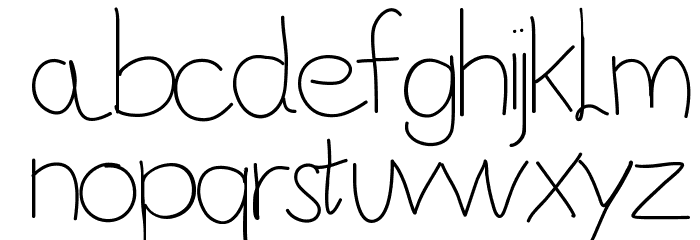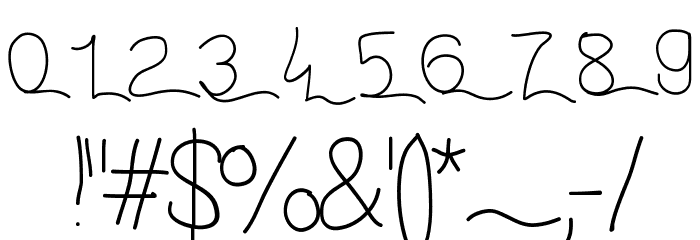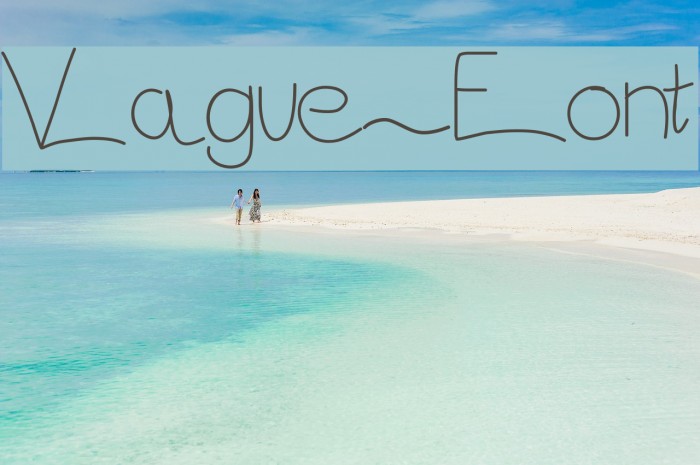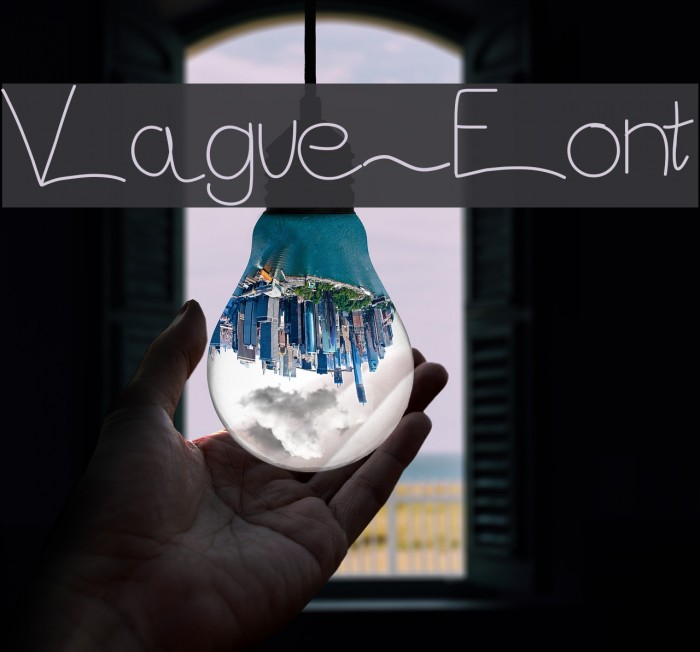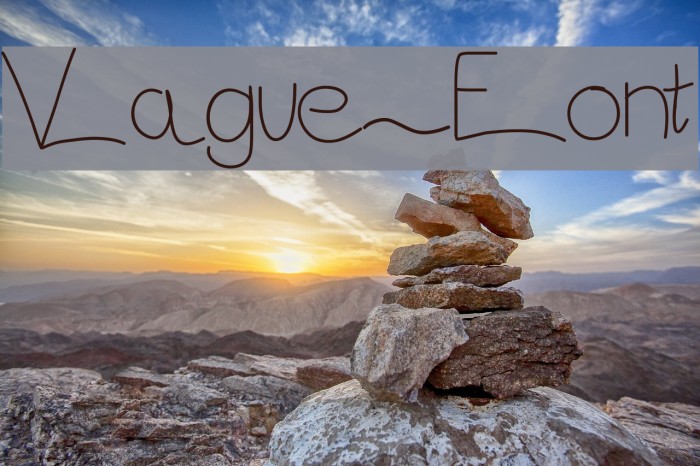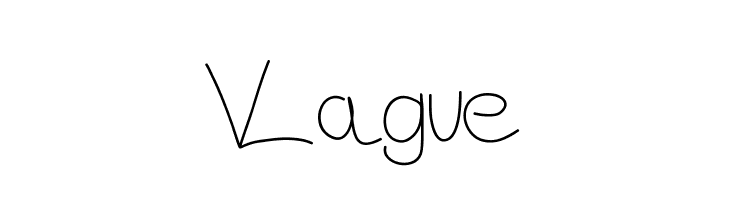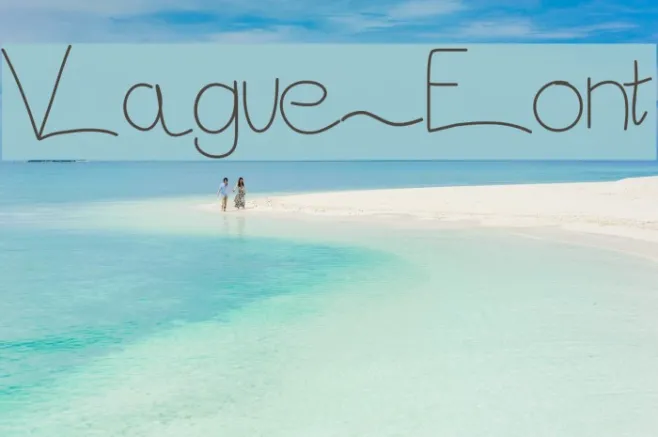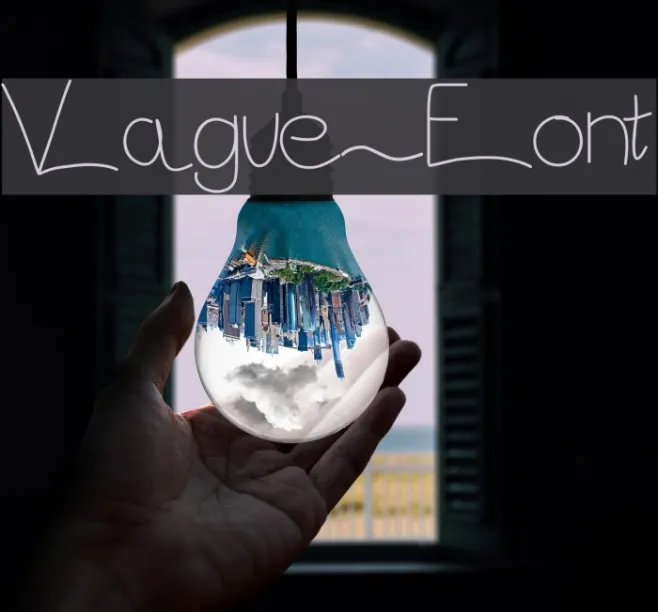
Vague Font
This font features a playful and whimsical design with a handwritten style. The characters are thin and elongated, with a consistent stroke width that gives it a light and airy feel. The uppercase letters have a unique, slightly wavy baseline, adding to the font's quirky charm. Lowercase letters maintain a similar style, with some characters like 'g' and 'j' having distinctive loops. The numerals and special characters follow the same aesthetic, ensuring a cohesive look across all glyphs. This font is ideal for projects that require a casual and friendly tone.
A playful, handwritten font with thin, elongated characters and a whimsical style.
- Proposed Projects: Greeting cards, children's books, casual branding, and playful invitations.
- Overall Style: Whimsical
- Use Case: Headlines, Logos, Casual text